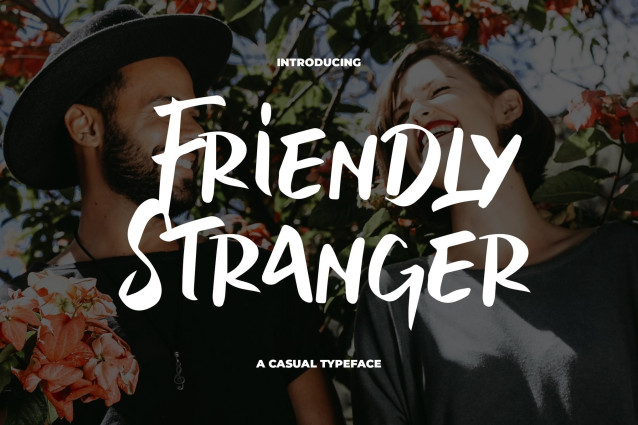
Friendly Stranger Font
Friendly Stranger Font is a casual font with a natural brushstroke, including uppercase letters, lowercase letters, numbers, and punctuation marks. This font will be the perfect choice for various designs and artworks such as social media posts, branding, posters, merchandise, packaging, headlines, merchandise, T-shirts, and more.